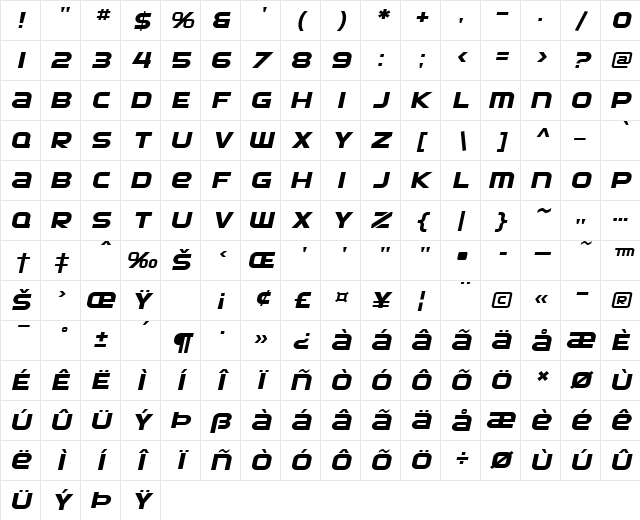
Complete SF Automaton Extended Oblique glyph index. Displaying only characters natively supported by SF Automaton Extended Oblique font.
SF Automaton Extended is a composed and adaptable typeface that performs quietly and consistently across a wide range of design contexts. The slanted form adds forward momentum and visual energy.